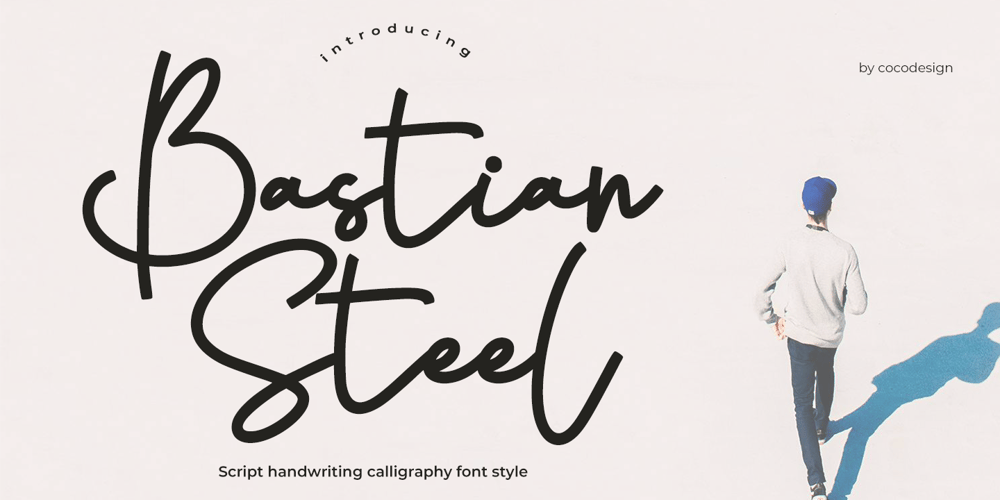
Bastian Steel Font Family was designed by Muhammad Zaini and published by Cocodesign. Bastian Steel contains 1 styles and family package options. Introducing Bastian Steel font, a real aesthetic delight for those in pursuit of distinctive typography. Excellently suited for your wedding calligraphy needs, this stylish font turns every letter into art. Its chic, feminine strokes effortlessly enhance the elegance of home decor frames, book covers, and greeting cards. Transform your branding with this elegant font that adds a touch of sophistication to logos, marketing collateral, and even apparel designs. Perfect for any project that necessitates delicate, handwritten charm, Bastian Steel font brings your words to life in the most mesmerizing way.